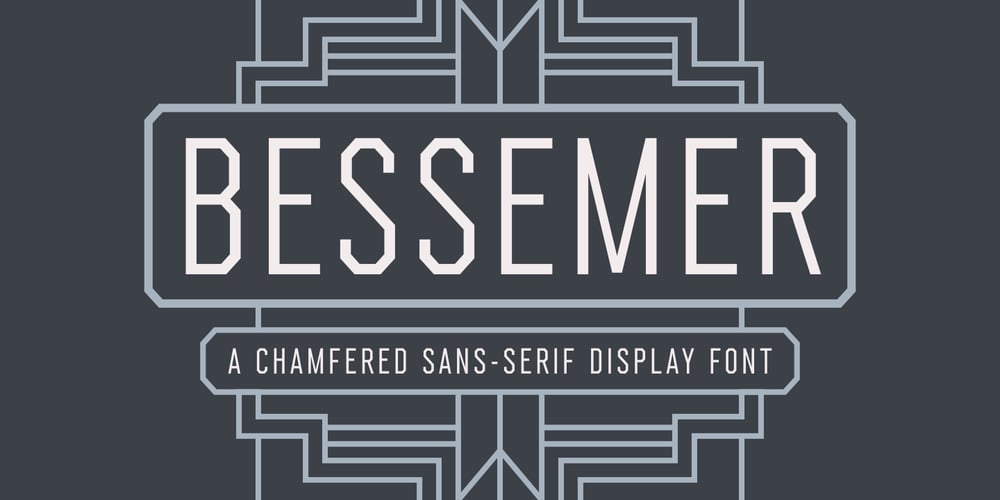
Bessemer
Bessemer font
Bessemer Font Family was designed by Sam Jones and published by Sivioco. Bessemer contains 5 styles and family package options. Bessemer is an all-caps sans-serif display font inspired by industrial lettering from the 20th century. On its own, it has a predominantly factory-made feel, but is versatile enough to work well in a variety of settings. In other words, it feels just at home on a series of technical guides as it does on a range of hair styling products. Bessemer comes in 5 weights ranging from Light to Bold and has been designed with chamfered edges. This makes it really easy to customize and create your own custom type. It also includes the following OpenType features: • Proportional Lining Figures • Tabular Lining Figures • Superior & Inferior Figures • Numerators & Denominators • Ordinals • Fractions Perfect for logos, posters, t-shirts, packaging and use in video. Delivered in TTF and OTF format. Supports all Western, Central and South Eastern European languages.